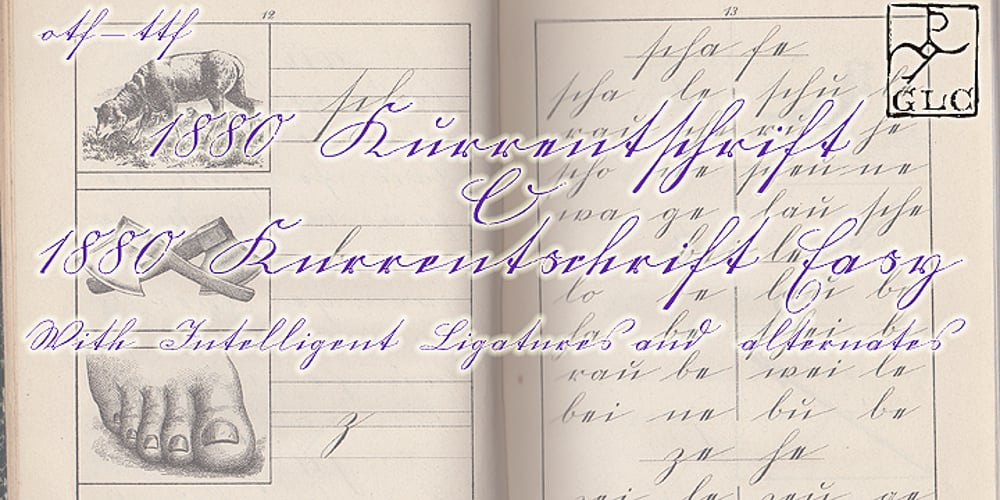
1880 Kurrentshrift Font Family was designed by published by GLC. 1880 Kurrentshrift contains 2 styles and family package options. This font was inspired by the old form of the so called “Kurrentschrift” German handwriting, based on late medieval cursive. It is also known as “Alte Deutsche schrift” (“Old German script”). It was taught in German schools until 1941, when Adolf Hitler decided to forbid it. As it is a little hard to read, we are proposing here two versions: the “pure” Kurrentschrift, and an adapted “Easy” one, with simplified difficult characters.